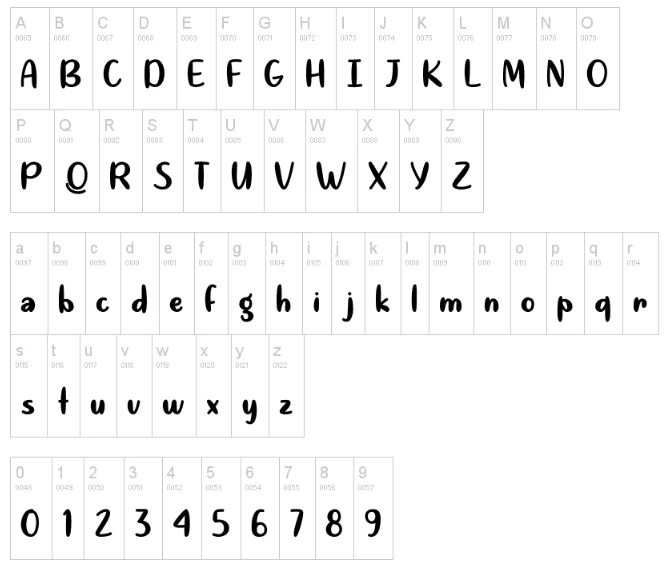
Quite Magical font is Script font. Misti Hammers designs this awesome font. Quite Magical font created 24th September in 2018 and available to the web. This font is perfect for greeting cards, kids web, and visual platforms. Quite Magical may help you to fulfill the audience demand. Good Unicorn, Whale I Tried is mostly similar to Quite Magical font which is also designed by Misti.
| Name | Quite Magical Font |
| Style | Scripts |
| Author | Misti Hammers |
| Type | Regular |
What type of font is Quite Magical?
Ans: Quite Magical is a Script font with 230 glyphs.